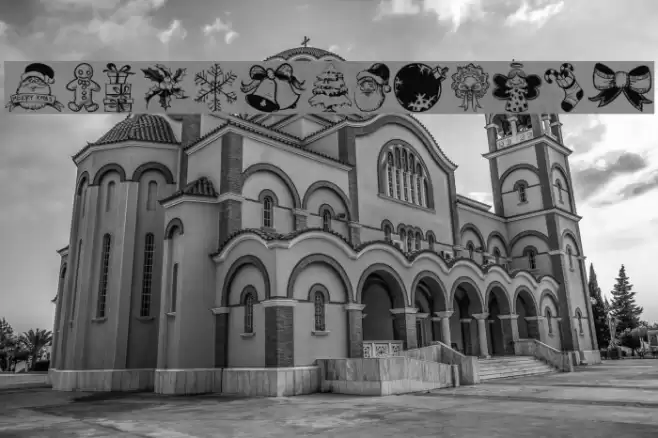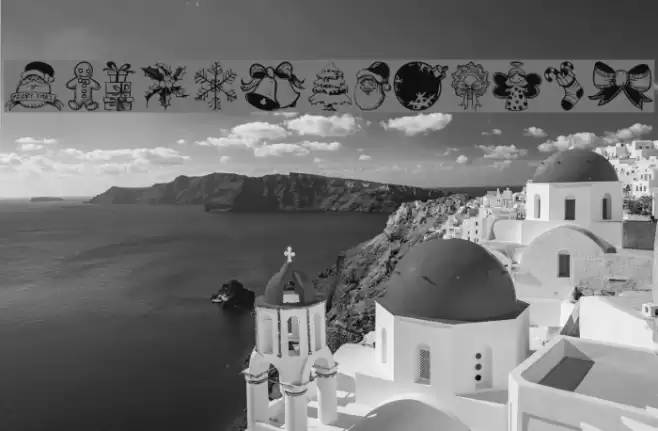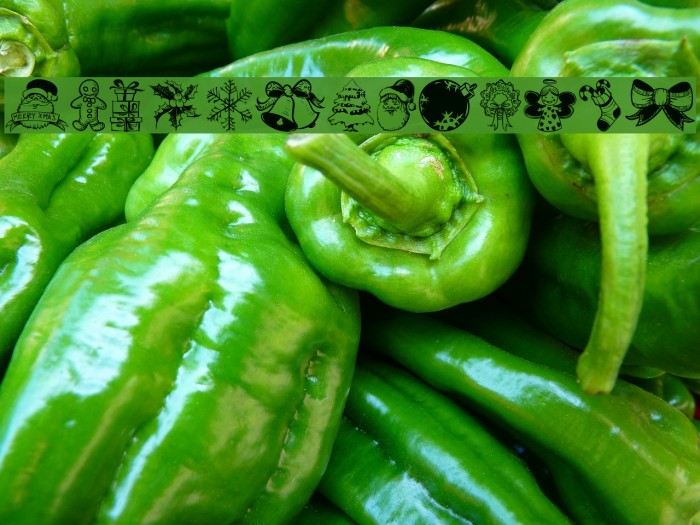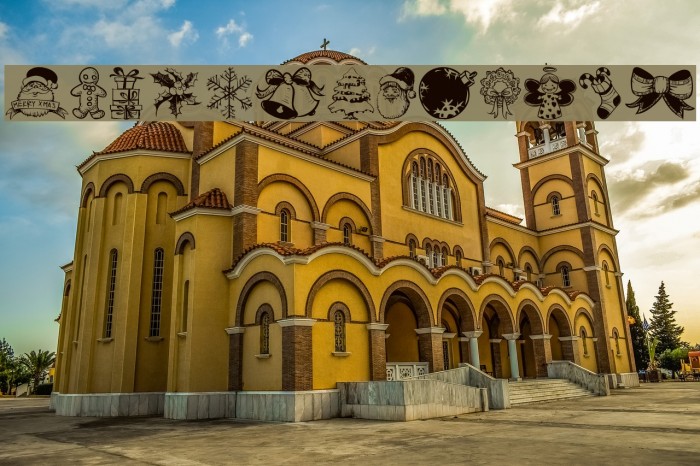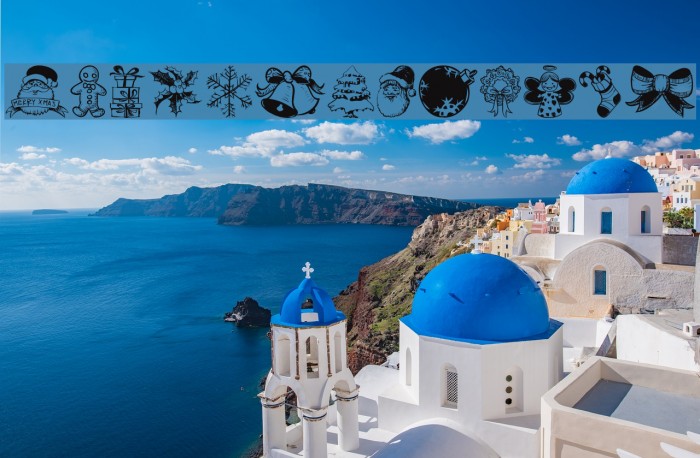
Hand Christmas Doodle Font
Hand Christmas Doodle Description
A playful, hand-drawn decorative set of Christmas-themed doodles including Santa, gifts, snowflakes, wreaths, and festive icons. Each character is an illustrated holiday motif with whimsical, sketchy lines and a casual, joyful feel.
Hand-drawn Christmas doodle icons with a festive, whimsical style from Uncategorized fonts.
- Proposed Projects: Holiday greeting cards, festive invitations, seasonal posters, gift tags, social media graphics, children's crafts.
- Overall Style: Decorative, Whimsical, Festive
- Use Case: Decorative elements, Themed graphics, Holiday branding